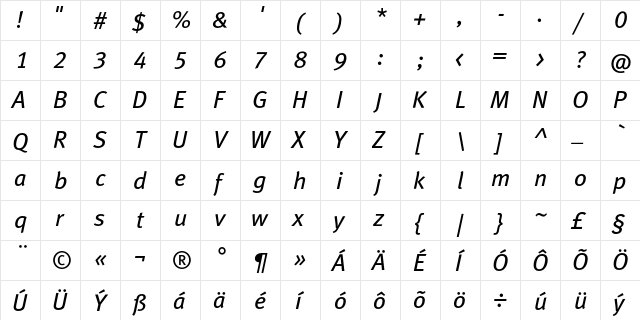
MetaBookCELF Italic
Design Context for MetaBookCELF Typeface
MetaBookCELF is a composed and adaptable typeface that performs quietly and consistently across a wide range of design contexts. The dynamic lean of this cut emphasises speed and emphasis in any layout.
Pro Tip: Try MetaBookCELF for annotation and caption copy alongside an upright companion — the contrast in angle creates a dynamic but ordered typographic system.